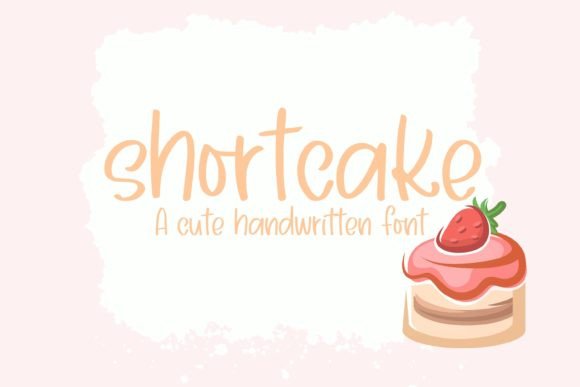
Looking for a unique and adorable handwritten font for your next design? Look no further than our "Shortcake" font! Created by designingdigitals, this whimsical script font is the perfect choice for adding a touch of charm to any crafting project.
Whether you're creating custom cards, personalized gifts, or unique home decor, our "Shortcake" font will help your designs stand out from the crowd. Its cute and playful style will instantly grab attention and evoke a sense of joy and whimsy.
With its high-quality files and easy-to-use design, "Shortcake" is a must-have for both beginners and experienced designers. You don't need to be a pro to create beautiful and unique designs that are sure to impress. Our font will elevate your creativity and take your craft to the next level.